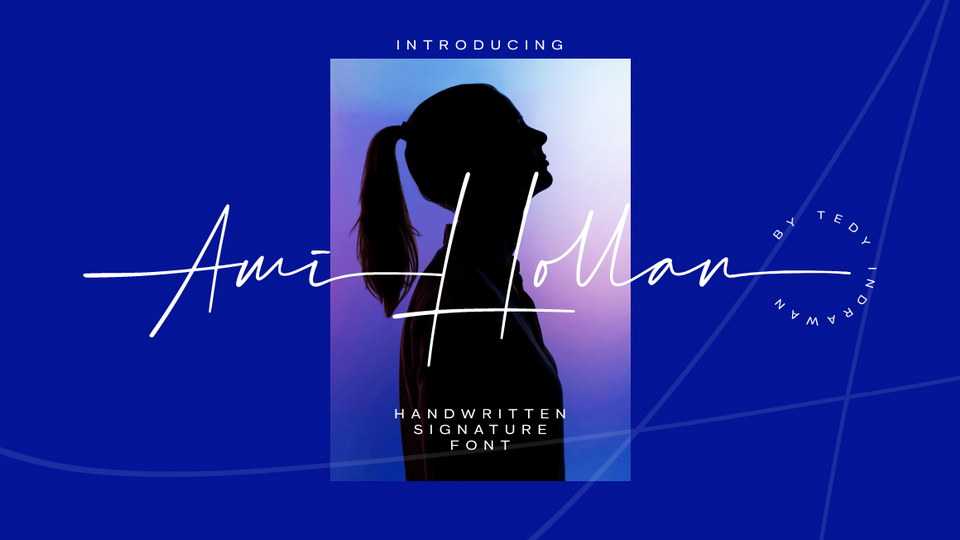
Download Ami Hollan font, a stylish handwritten signature script with a dynamic flow. Ami Hollan font is perfect for signature logos, branding, photography, covers, product packaging, social media, quotes and more.
Designer: Tedy Indrawan